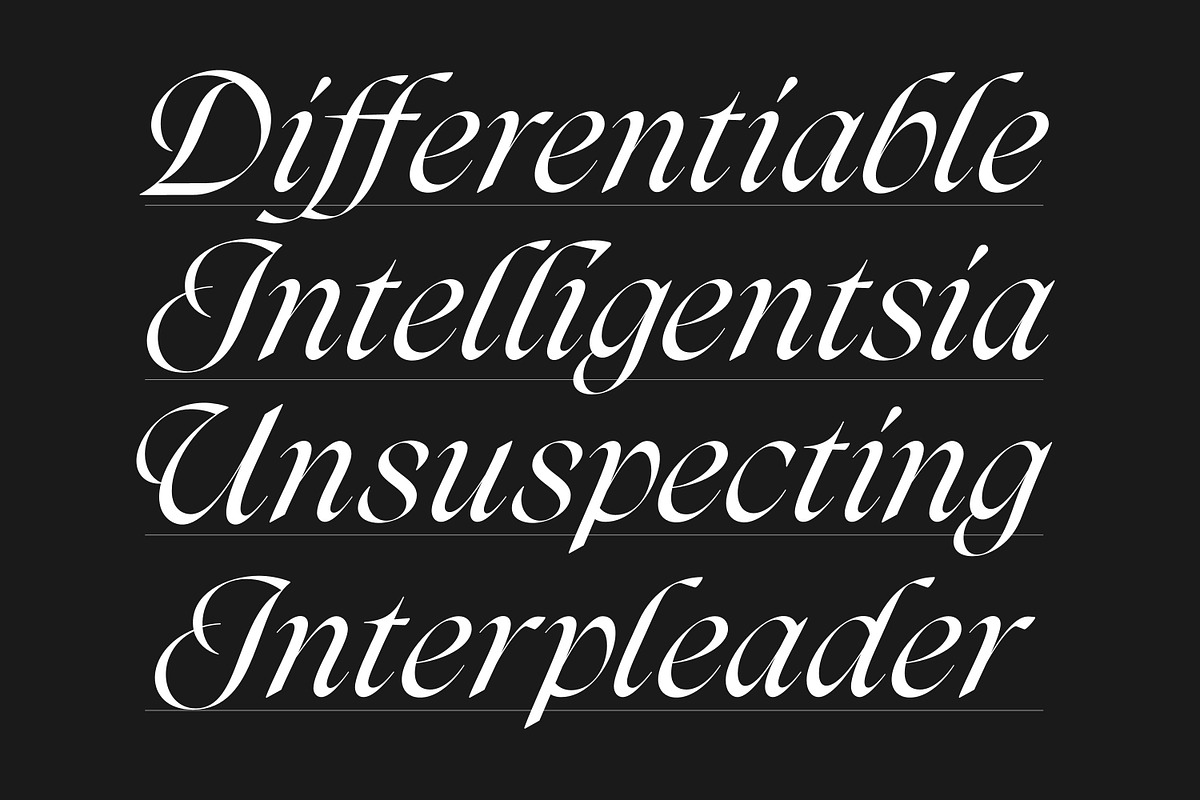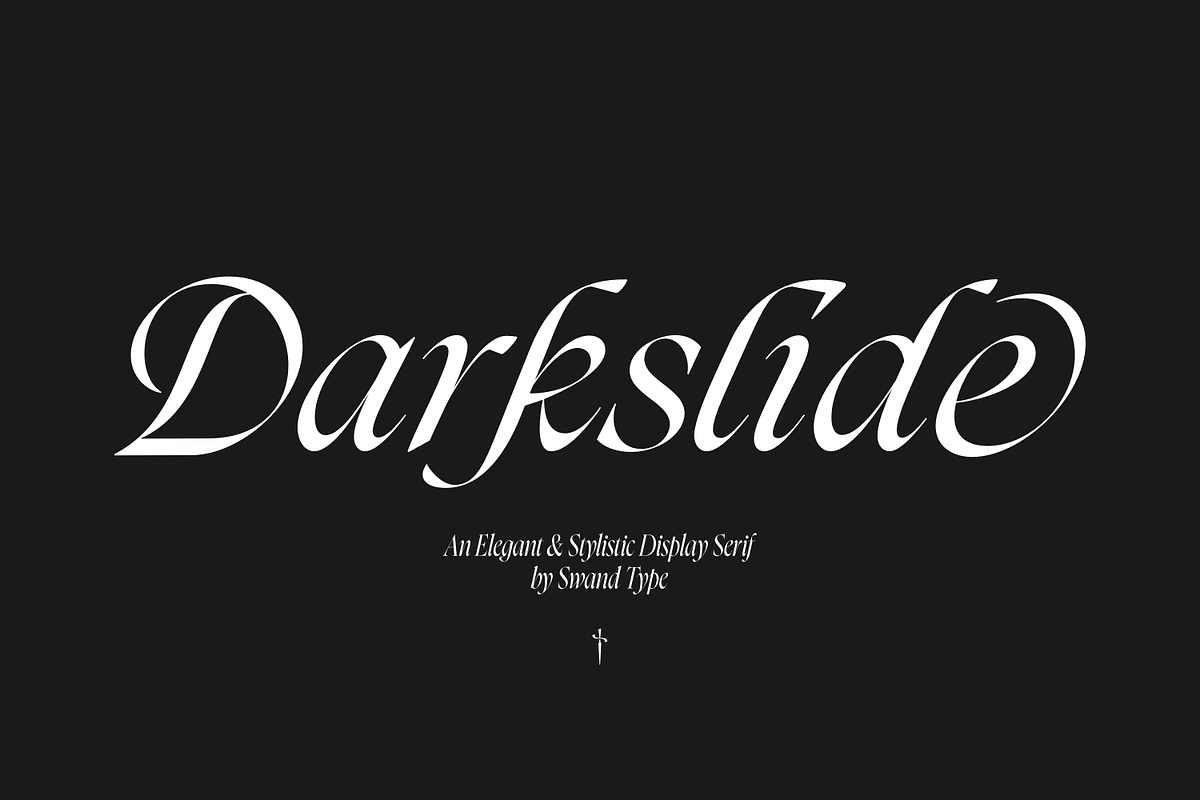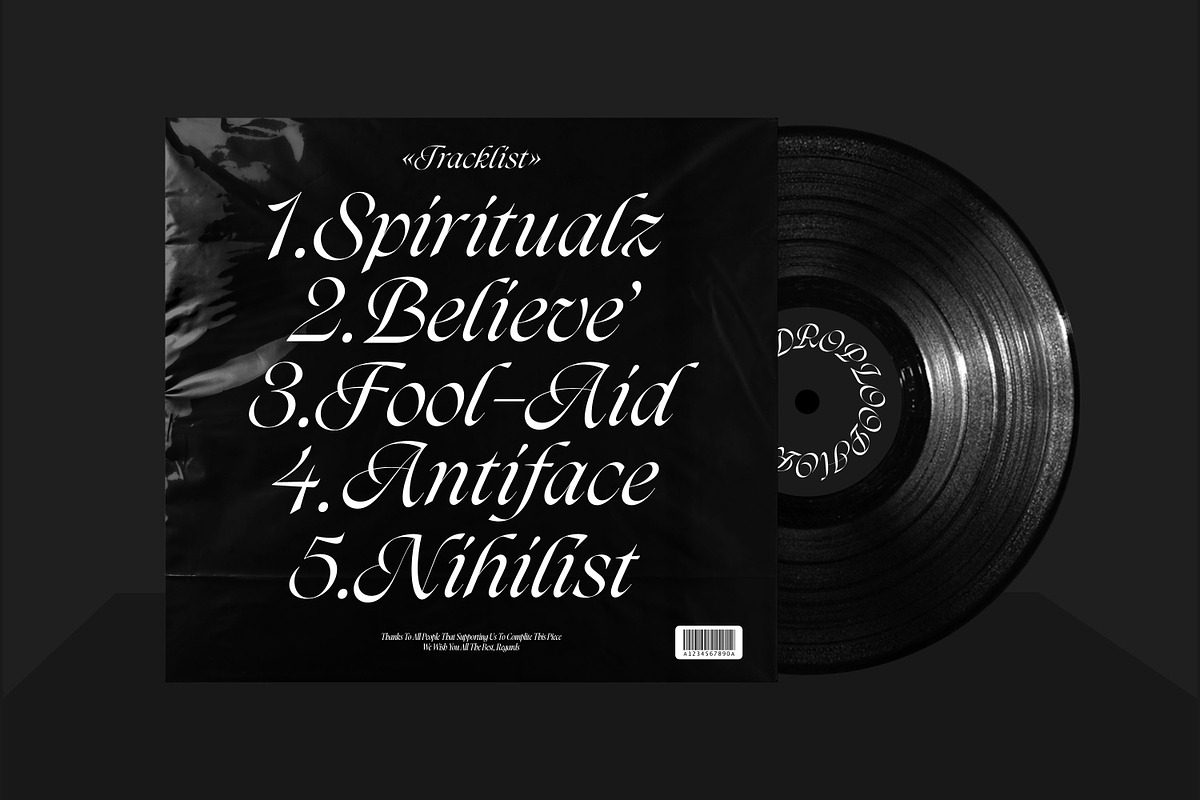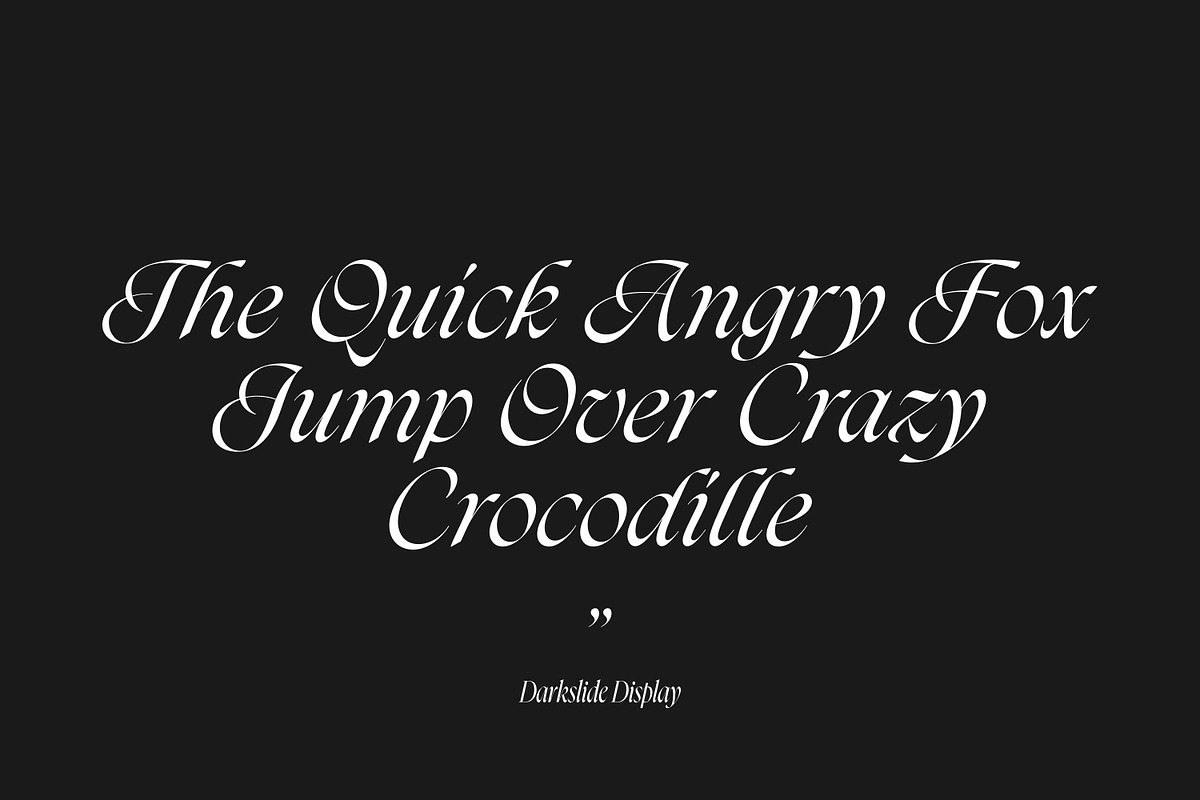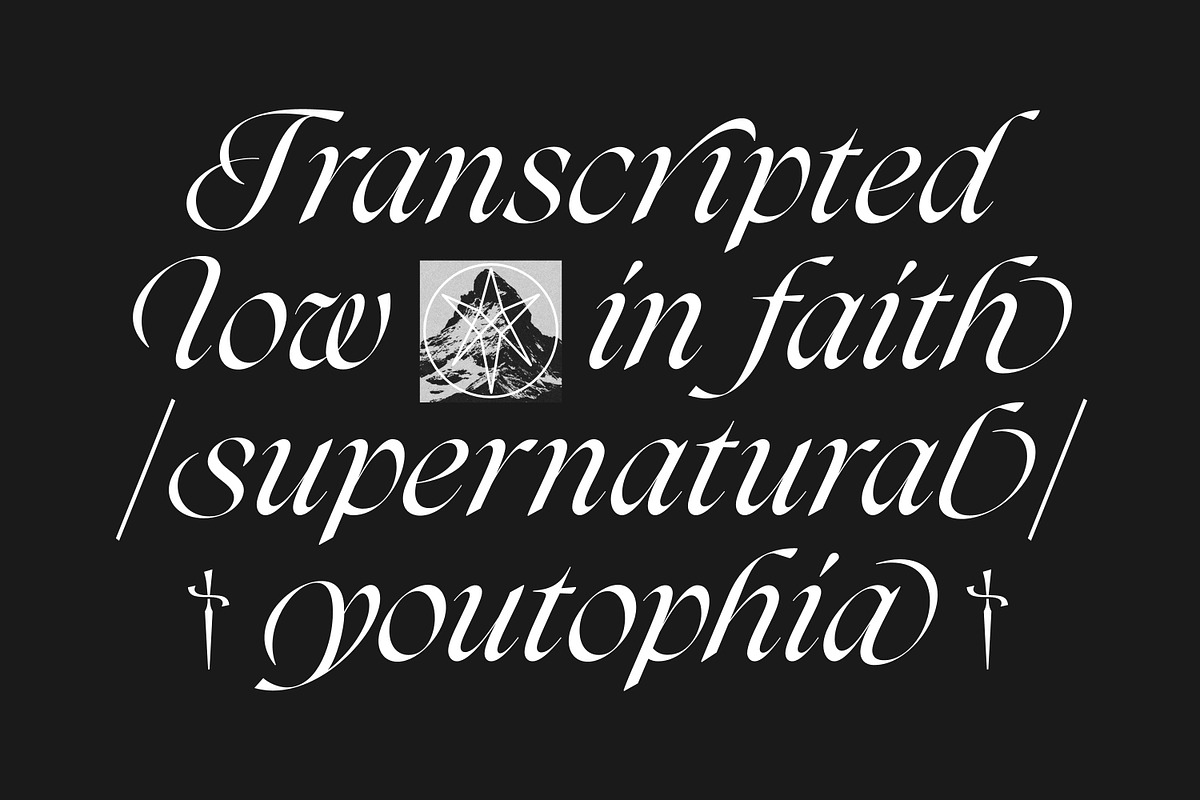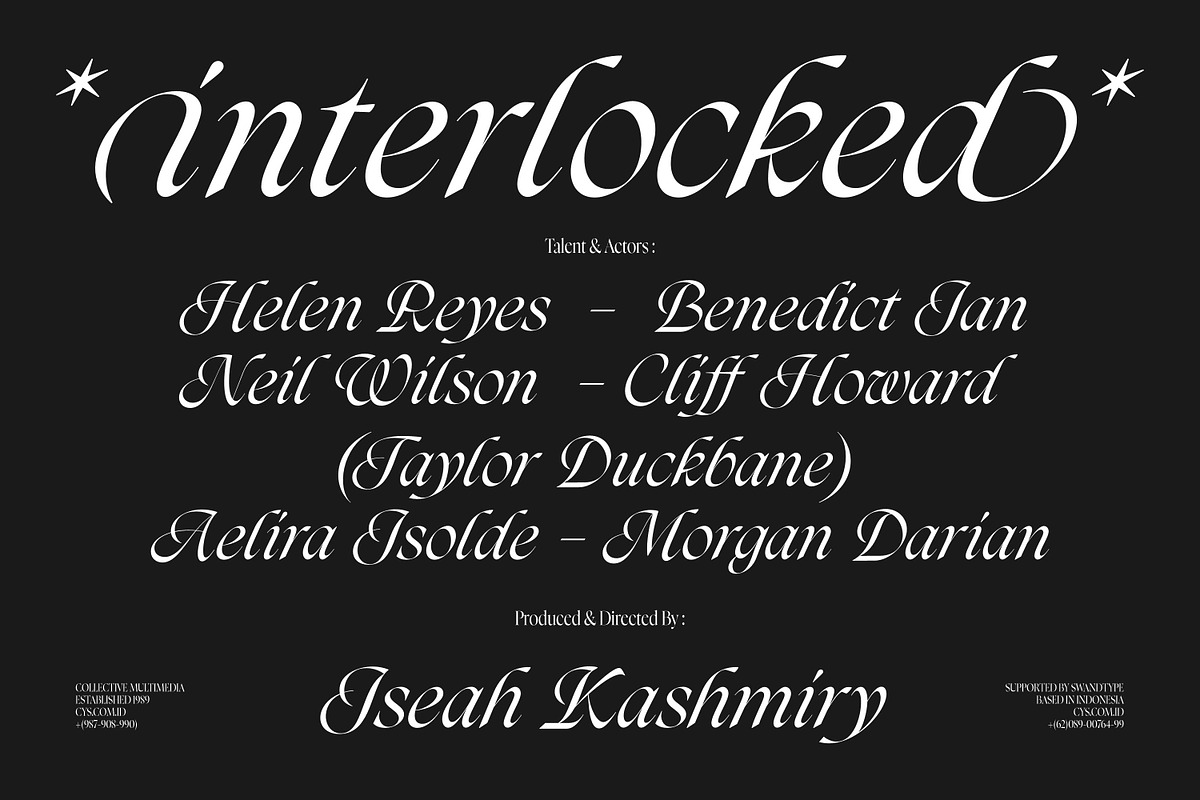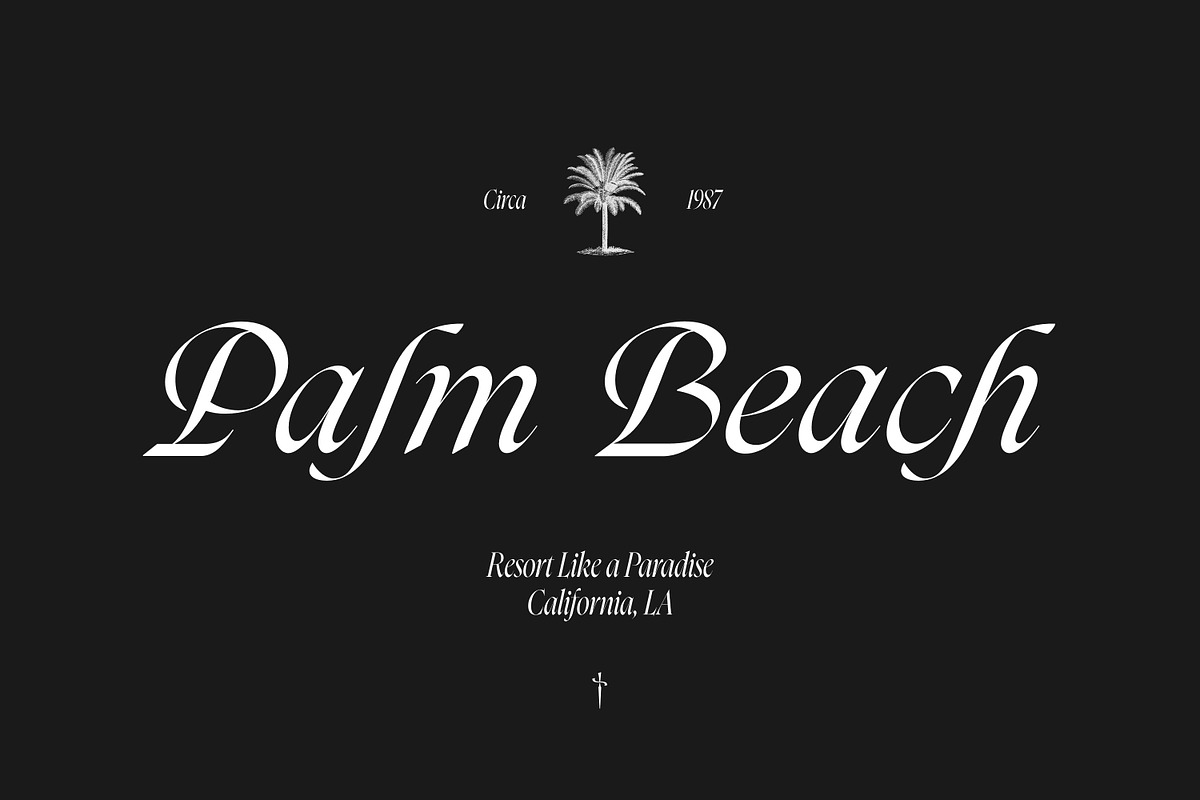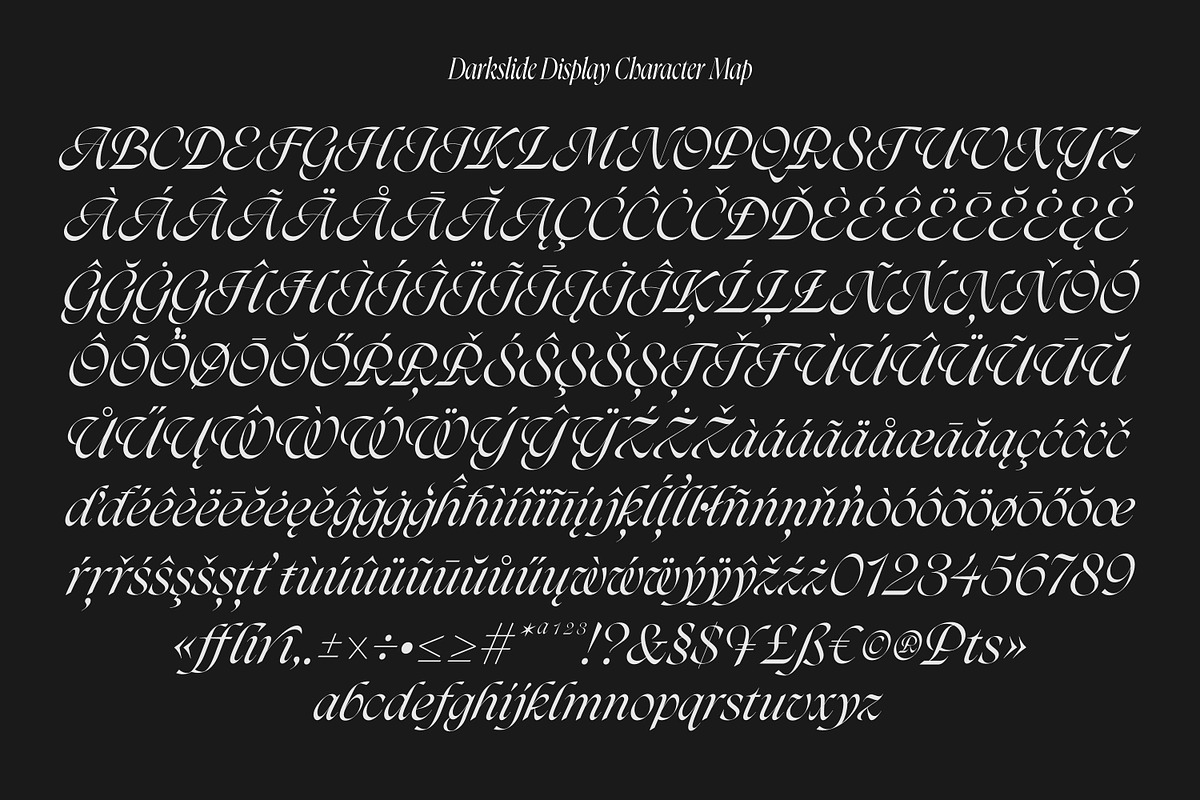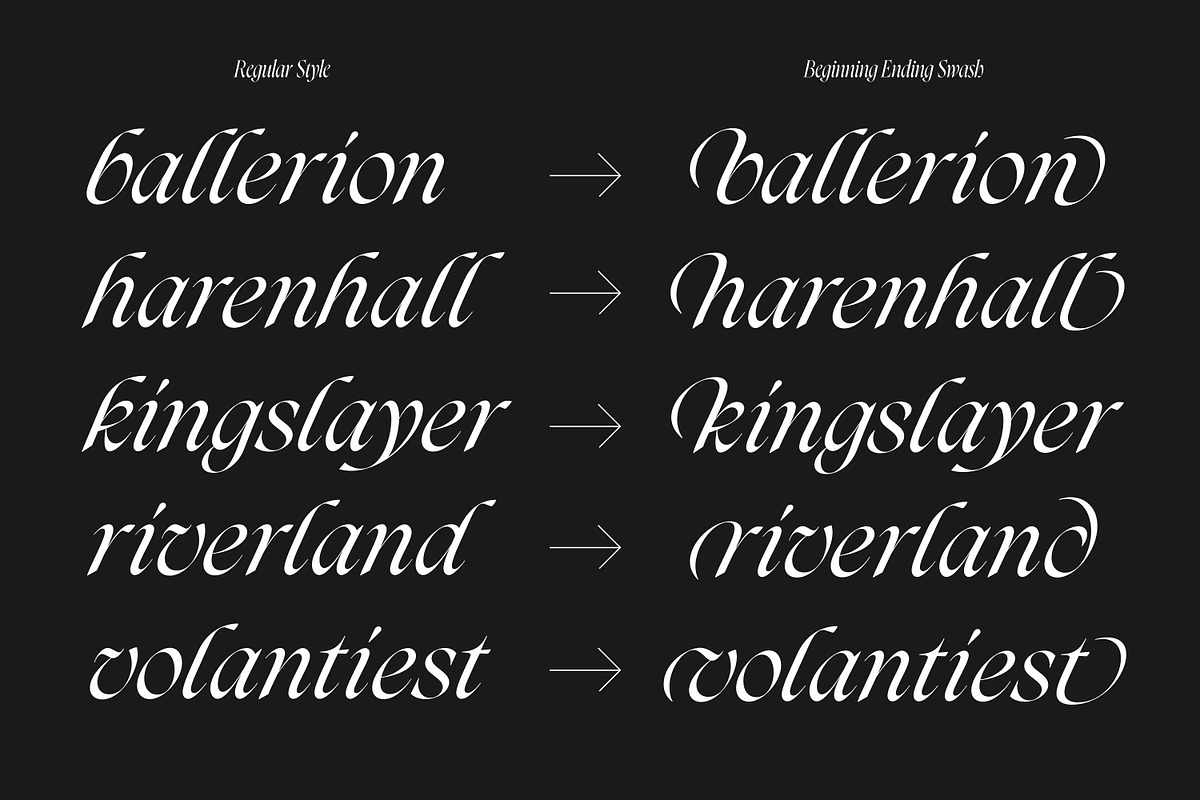
Darkslide - Elegant Display Serif
Darkslide is a Elegant and modern display serif typeface. A strong edgy serif with an elaborate ornate to create a beautiful typographic shape. Including alternates (beginning swash & ending swashes).
The ornate alternate has many additional alternates to create unique designs.